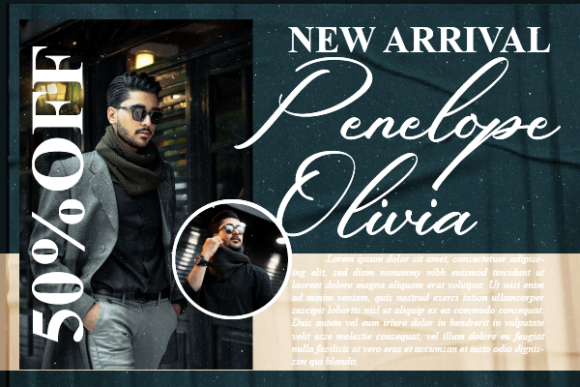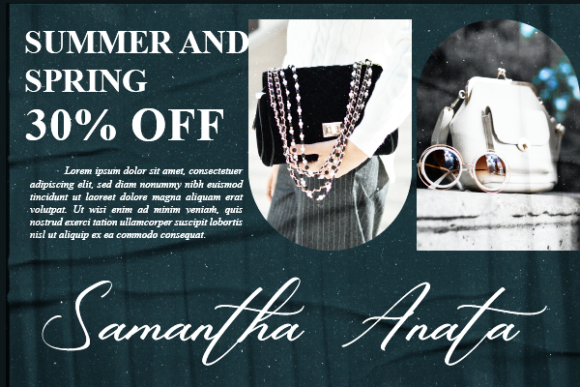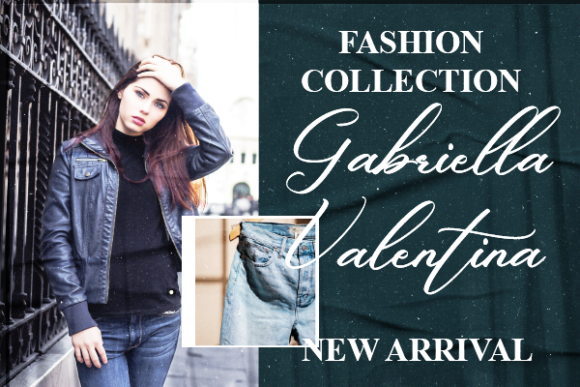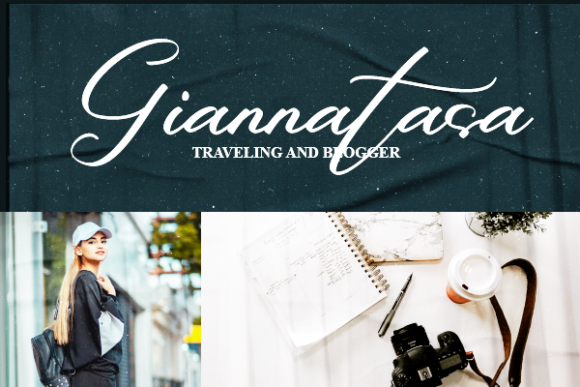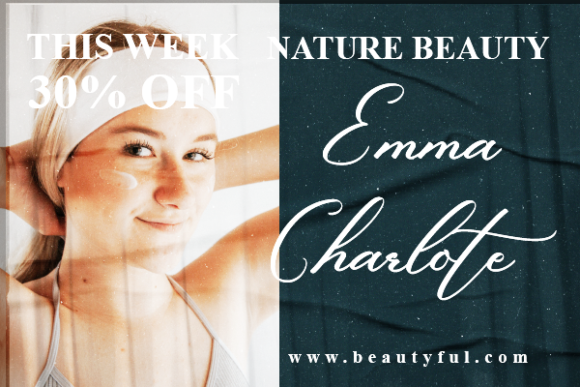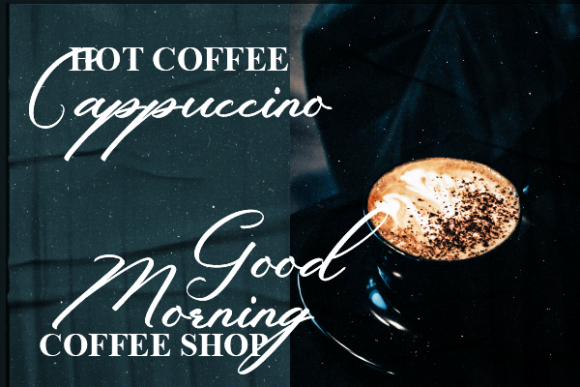
Introduction to Danielle Shiloh Font
Have you ever been working on a creative project and stumbled upon the perfect font, but it just wasn’t quite right? Maybe it was too bold, too plain, or just didn’t convey the emotions you wanted to express. This is exactly what happened to many designers when they discovered the beautiful Danielle Shiloh Font.
This elegant script font is more than just a pretty face – it’s a valuable design resource that can elevate any project from good to great. With its delicate, handwritten feel, Danielle Shiloh Font is perfect for logos, branding projects, labels, photography, and more. Whether you’re a seasoned designer or just starting out, this font is a must-have in your collection.
Key Features of Danielle Shiloh Font
- The Danielle Shiloh Font is a high-quality design resource suitable for creative projects.
- It features a unique, elegant script style with a transparent background, making it ideal for overlaying on images or videos.
- This font is perfect for designers who want to add a touch of sophistication and elegance to their creative projects.
Honest Review: Danielle Shiloh Font
As a designer, I’m always on the lookout for unique and high-quality design resources to elevate my creative projects. Recently, I stumbled upon the Danielle Shiloh Font, and I’m excited to share my honest review with you.
- ✨ Beautiful, hand-drawn style that adds a personal touch to any design project
- ⚠️ Limited character set, which may not be suitable for long blocks of text
- ⚠️ May require some tweaking to achieve the desired level of legibility at smaller font sizes
Overall, I’m impressed with the Danielle Shiloh Font’s unique style and high-quality design. While it may not be suitable for every project, it’s definitely a valuable addition to any designer’s toolkit. Whether you’re working on a creative project or simply looking for a fresh font to spice up your designs, the Danielle Shiloh Font is definitely worth checking out.
Danielle Shiloh Font is commonly used in design projects that require a high-quality, elegant font. This font is perfect for creating logos, branding, social media posts, and other design elements that require a touch of sophistication.